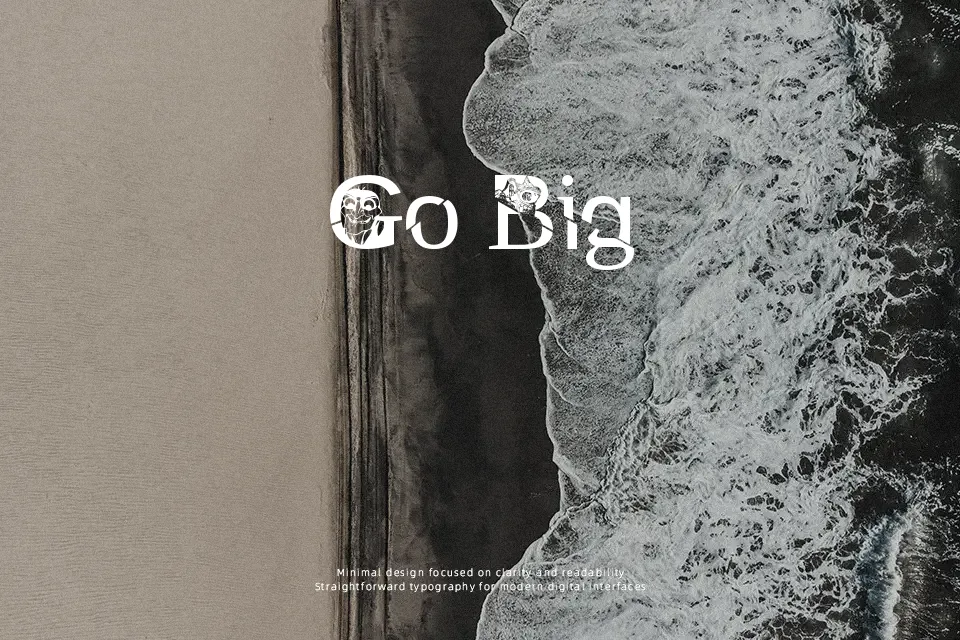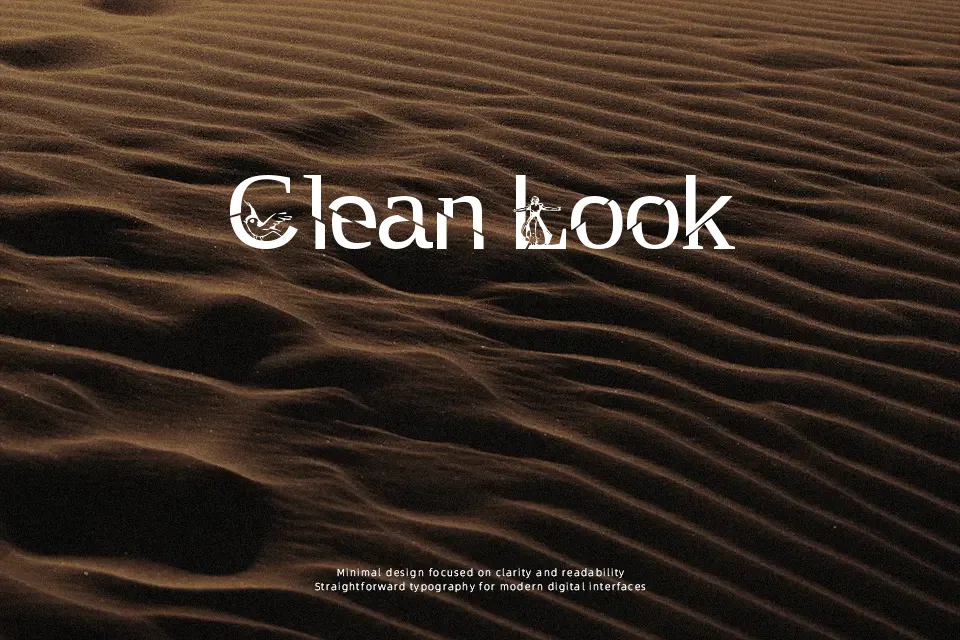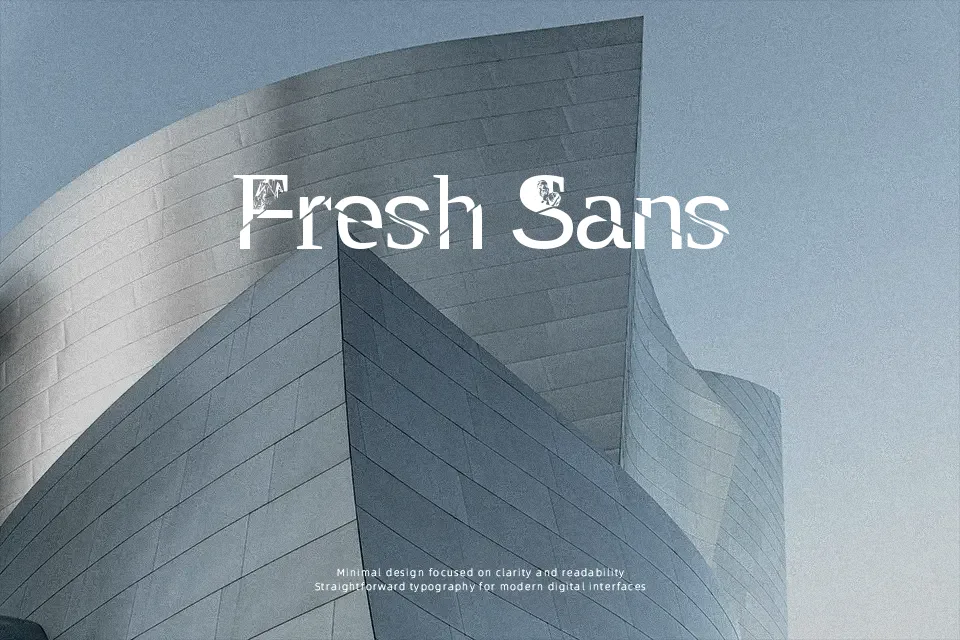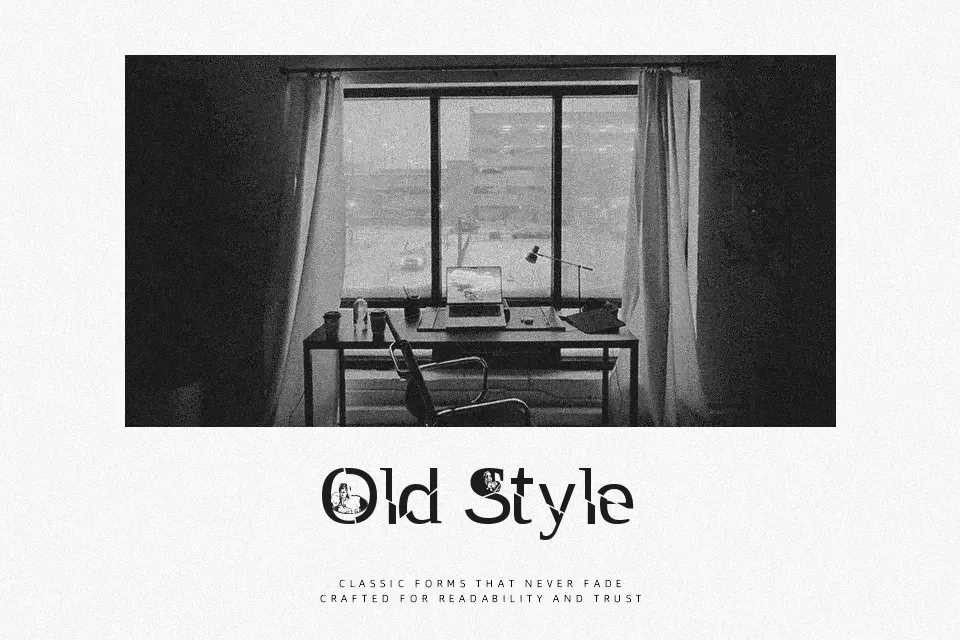
TAK Enchanted Font
Designed by Ho Tak Lam
TAK Enchanted Font combines clean sans serif forms with more decorative serif letterforms, creating a visibly uneven but intentional contrast across the character set. Its strokes appear generally light to medium in weight, while the serif details add a more ornamental rhythm to selected letters. Spacing is most effective in short, separated words where the two visual approaches can be read clearly. The typeface works best for fantasy-inspired titles, student projects, or playful display compositions. It is less comfortable in small sizes and continuous text, since the changing letter treatment can interrupt reading flow. The contrast is more memorable in a headline than in a dense layout.
Best For: fairy tale book covers,children’s poster headlines,fantasy event signage,creative school projects
Not Ideal For: long paragraph text,small interface labels,formal business documents,dense editorial layouts
Perfect for film, headline, and kids, with a artistic and decorative style.